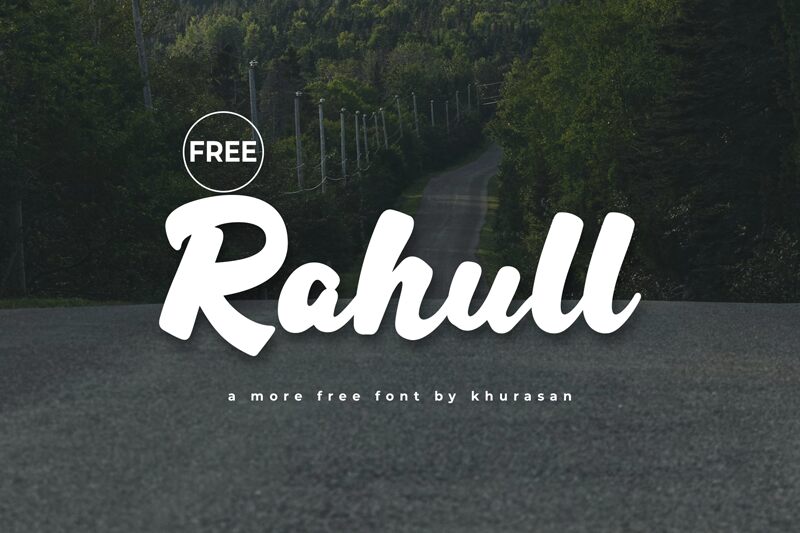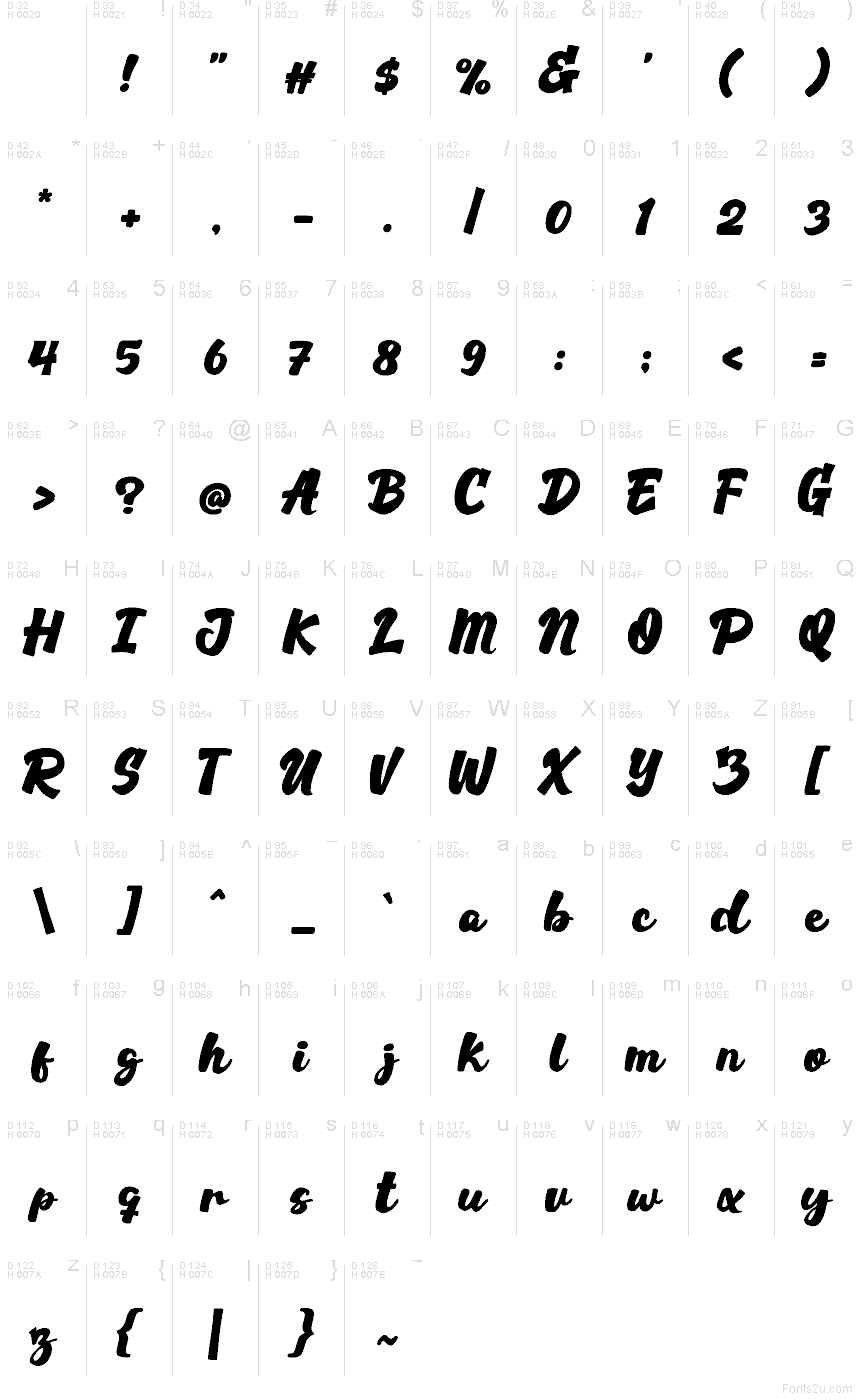
Rahull
Rahull font by Khurasan comes in like a fat brush loaded with ink—bold, slanted, and confidently messy in the best way. The strokes feel hand-painted and slightly rubbery, with chunky curves that keep words loud and friendly without turning fragile. It’s a free brush font, made for moments when you want instant personality and motion.
Using Rahull, titles stay readable even at smaller poster sizes because the shapes are packed and punchy. Try it on streetwear logos, YouTube thumbnails, food trucks, gig flyers, sports merch, stickers, or punchy social quotes; pair it with a clean sans like Montserrat for the supporting text. This free font also shines on packaging where a handmade vibe sells.